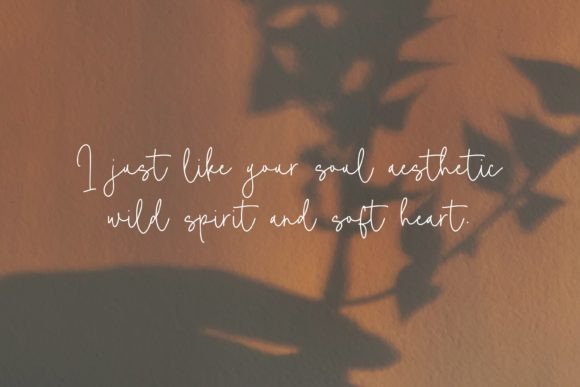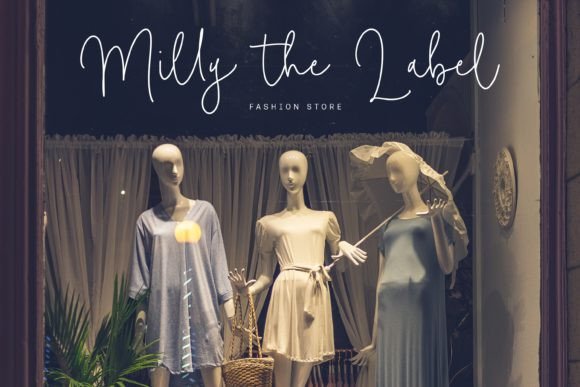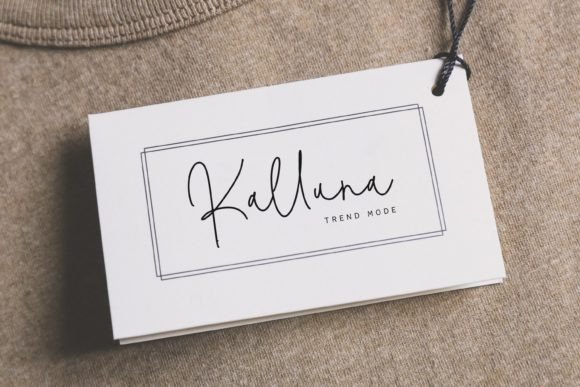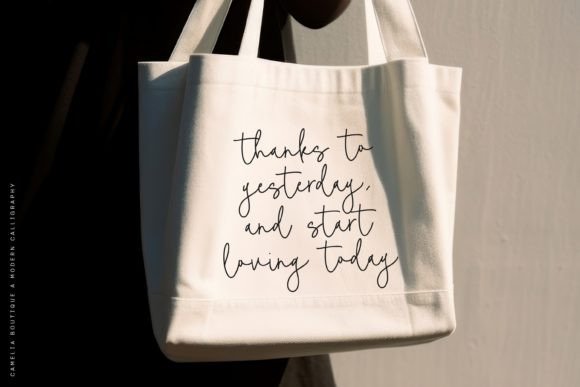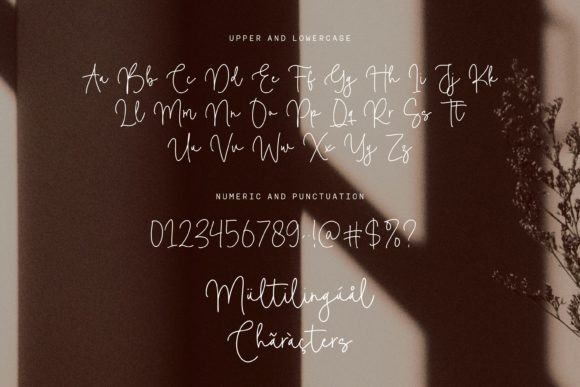
As a designer, have you ever stared at a blank canvas, feeling the pressure to create something truly special? The cursor blinks, your mind goes blank, and all you can think about is finding the perfect font to bring your vision to life. Well, we’re here to help. Introducing the Camelia Boutiue Font, a stunning Monoline Handwritten that’s sure to elevate your designs to the next level.
This elegant font is more than just a pretty face – it’s a versatile tool that can be used for a wide range of design projects, from logos and branding to invitations and packaging. With its smooth, effortless lines and understated sophistication, the Camelia Boutiue Font is the perfect choice for designers who want to create a modern look that’s still timeless in its appeal.
Camelia Boutique Font Key Features
- Font Family: Camelia Boutique Font, a luxurious and elegant script font
- Font Size: Available in 5 different font sizes, including 400, 500, 600, 700, and 800
- Unique Characteristics: Distinctive script style with elegant connections and luxurious feel
Review of Camelia Boutique Font
Overall, I’m impressed with the Camelia Boutique Font, but as with any design, it’s not without its flaws. Here’s my honest review.
- The font is elegant and sophisticated, perfect for high-end fashion brands or luxury products.
- The script font is well-designed, with smooth connections between letters and a nice flow.
- The font family is relatively comprehensive, with a range of weights and styles to choose from.
- The font is highly legible, making it easy to read even in smaller sizes.
- The font may be too ornate for some designs, and could feel overwhelming in large blocks of text.
- The font family could benefit from more variations in font widths, making it more versatile for different design applications.
- The font may not be suitable for digital displays, as the thin lines could be difficult to read on smaller screens.
Overall, I think the Camelia Boutique Font is a great choice for designers looking for a high-end, elegant script font. While it has some limitations, it’s well-designed and easy to use. With a little creativity and consideration for the design application, I think this font could be a great addition to any designer’s toolkit.
Tip: Use the Camelia Boutique Font for creating elegant and sophisticated designs, such as wedding invitations, luxury brand logos, and high-end marketing materials.
Tip: Use the Camelia Boutique Font for creating high-end graphics, logos, and branding materials that require a touch of elegance and sophistication.
Tip: Use the Camelia Boutique Font for creating professional-looking presentations, reports, and documents that require a touch of sophistication and elegance.
The Camelia Boutique Font is ideal for:
- Luxury brand